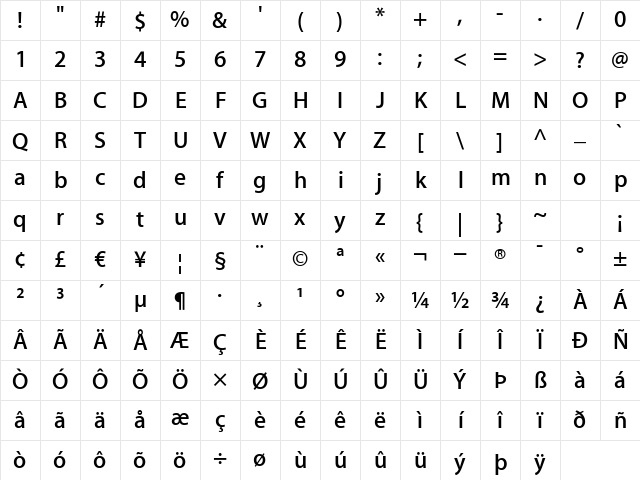
Myriad Set Pro Semibold
Style: Semibold
Design Context for Myriad Set Pro
Myriad Set Pro is a composed and adaptable typeface that performs quietly and consistently across a wide range of design contexts. Its bold stroke weight gives it real presence on the page.
Pro Tip: Use Myriad Set Pro in both headline and body roles to test its range before committing to a single application.